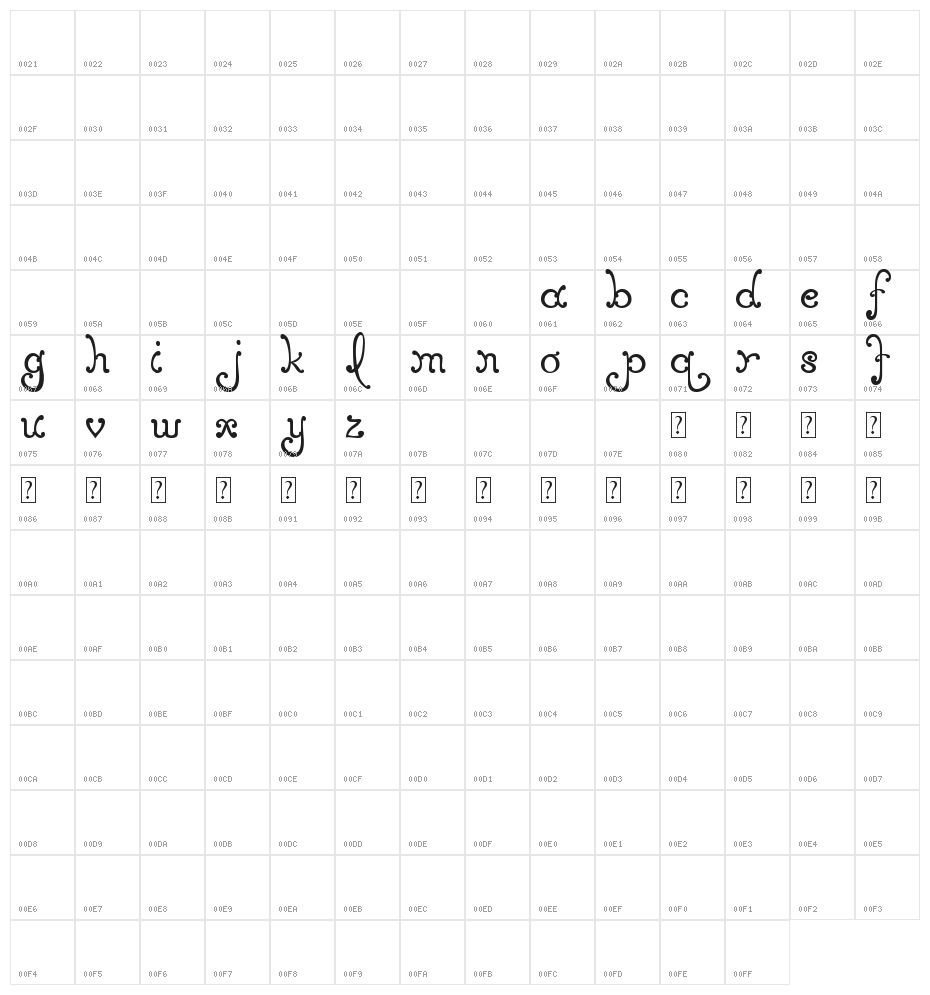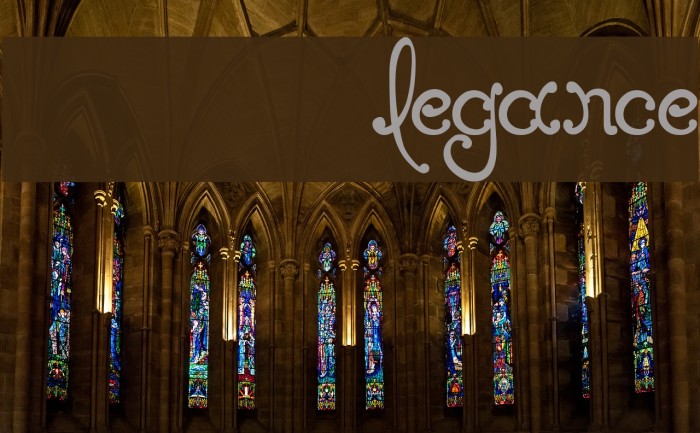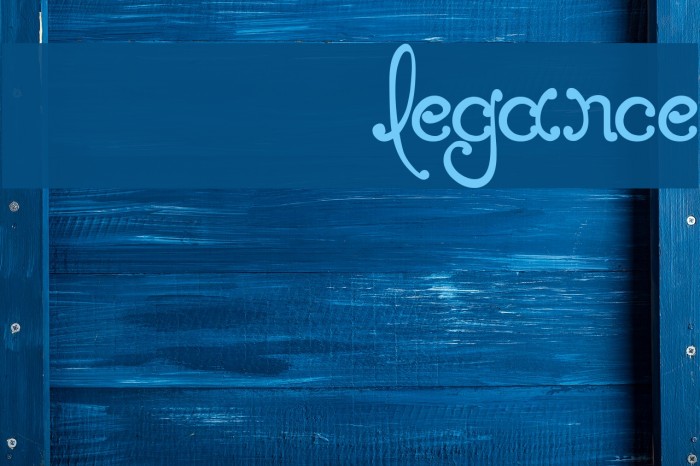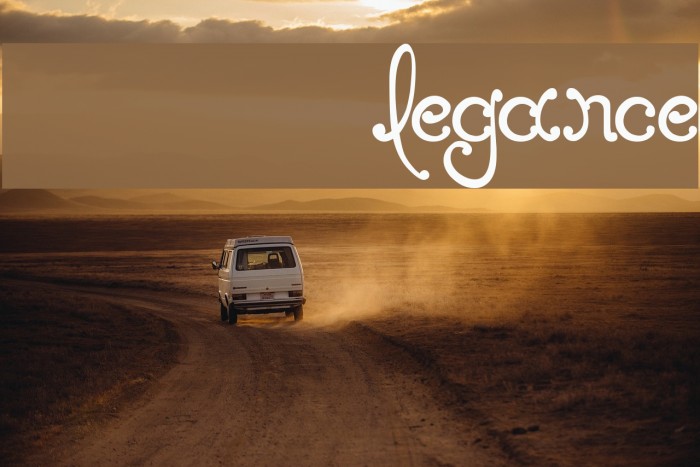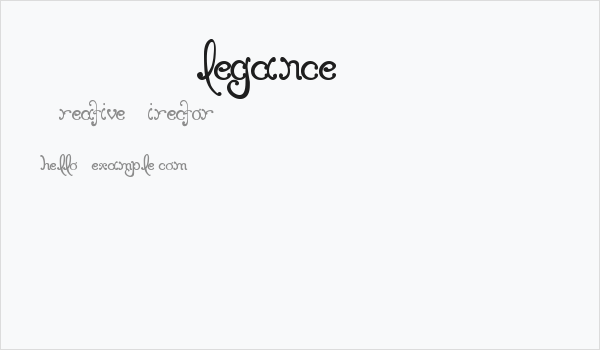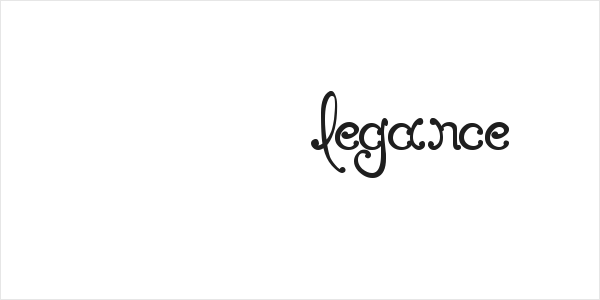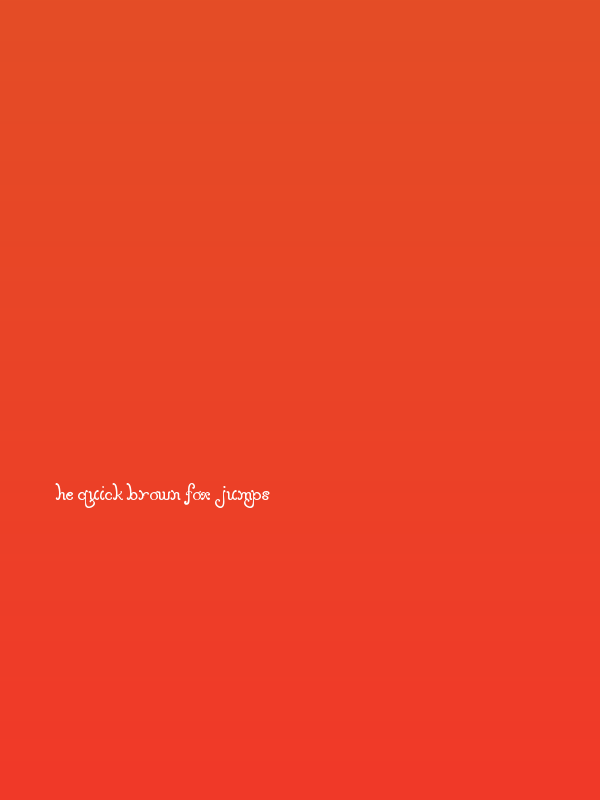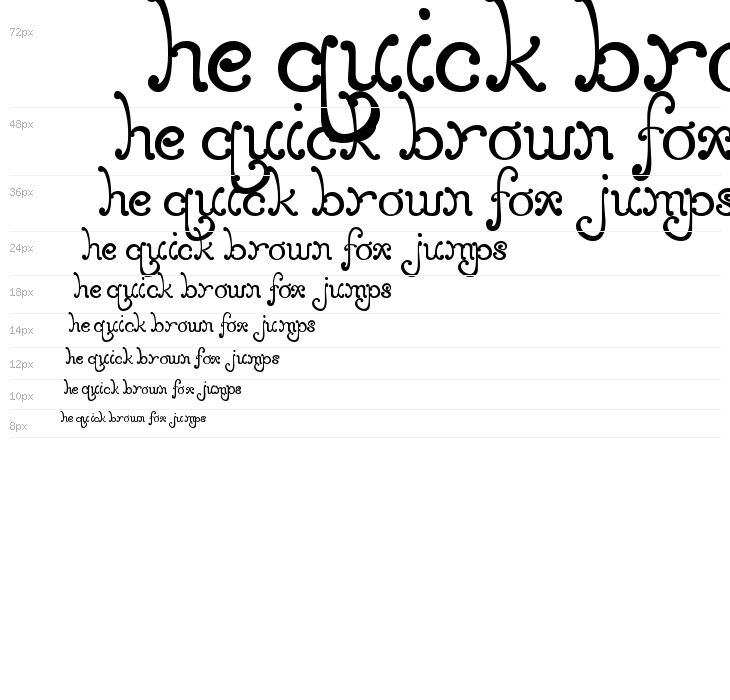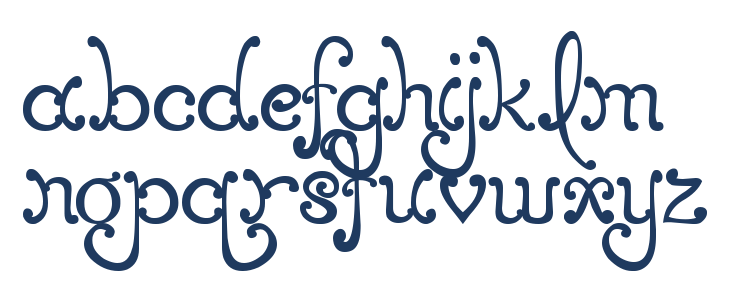
MTF Elegance Font
MTF Elegance Description
This font features a whimsical and decorative style with intricate curls and loops that add a playful and artistic flair to each character. The lowercase letters are particularly ornate, with exaggerated curves that create a sense of movement and elegance. The overall design is consistent throughout, maintaining a balance between readability and decorative appeal. This font is ideal for projects that require a touch of creativity and uniqueness, making it suitable for invitations, greeting cards, and artistic branding.
| Use Case | Headlines, Artistic projects, Invitations |
| Proposed Projects | Ideal for invitations, greeting cards, artistic branding, and decorative projects. |